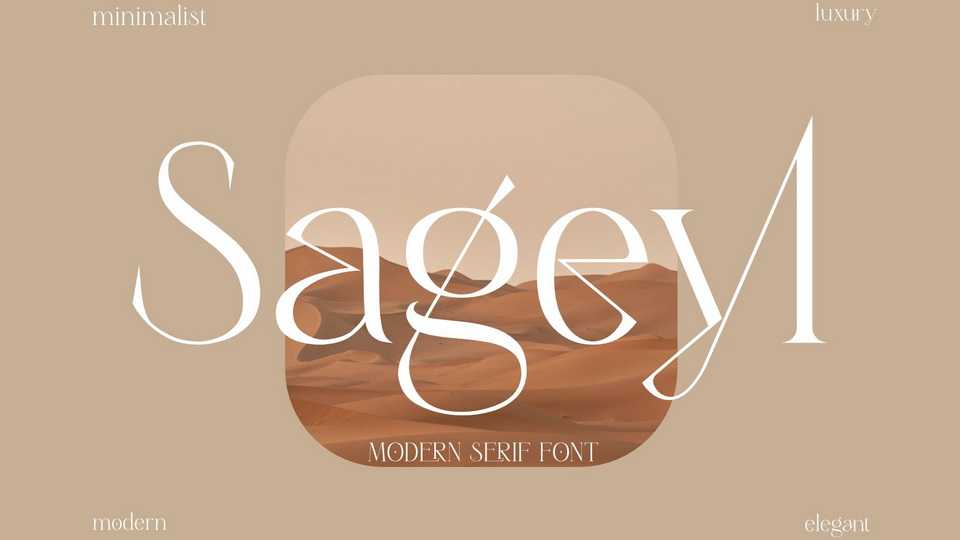
Download Sageyl font, a serif typeface that his own unique style and modern look. Sageyl loops and swoops in a delicate dance that is never boring. Use this dainty serif as a memorable logotype or header and pair it with something contrasting and clean.
Designer: Sealoung